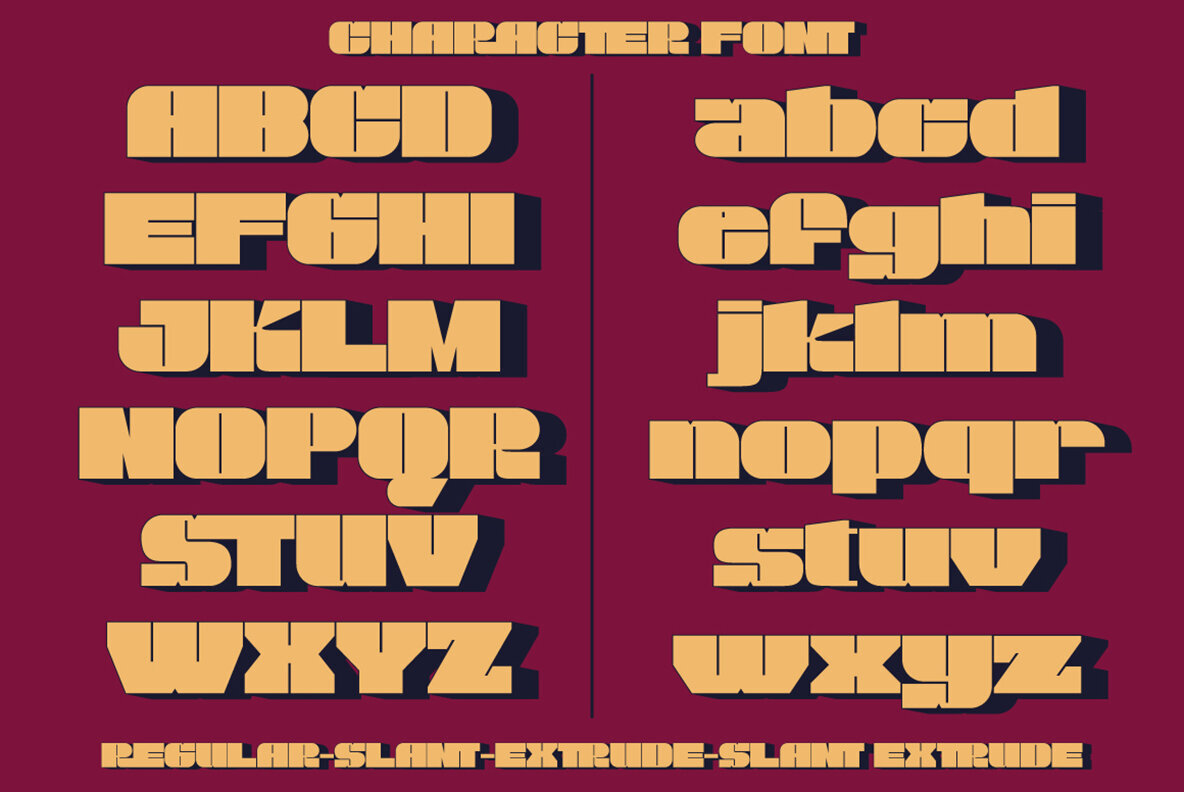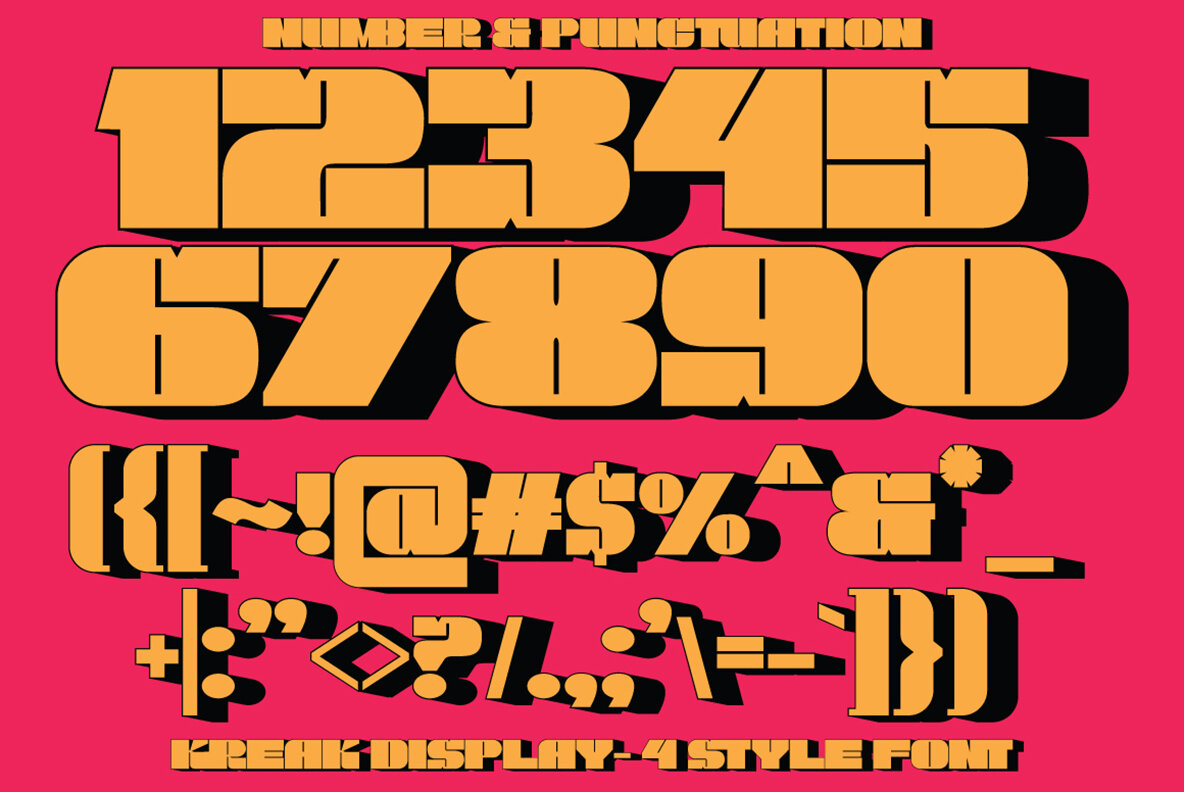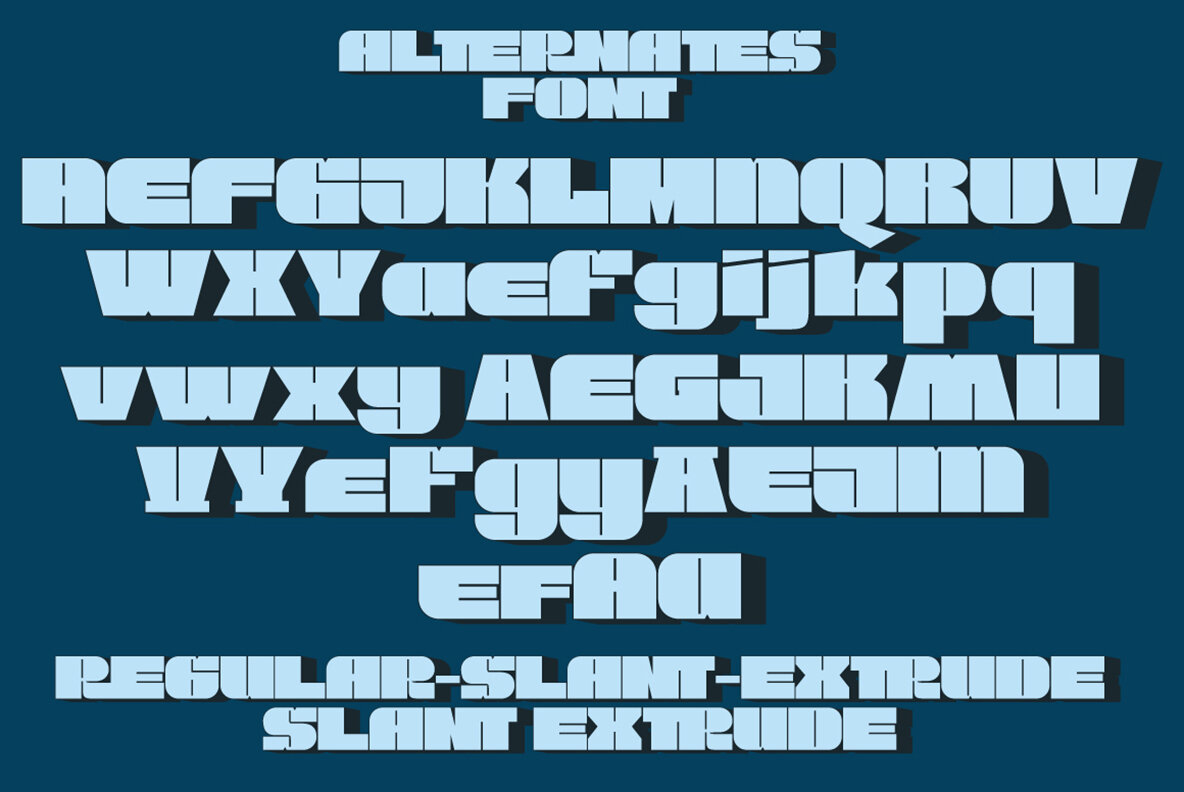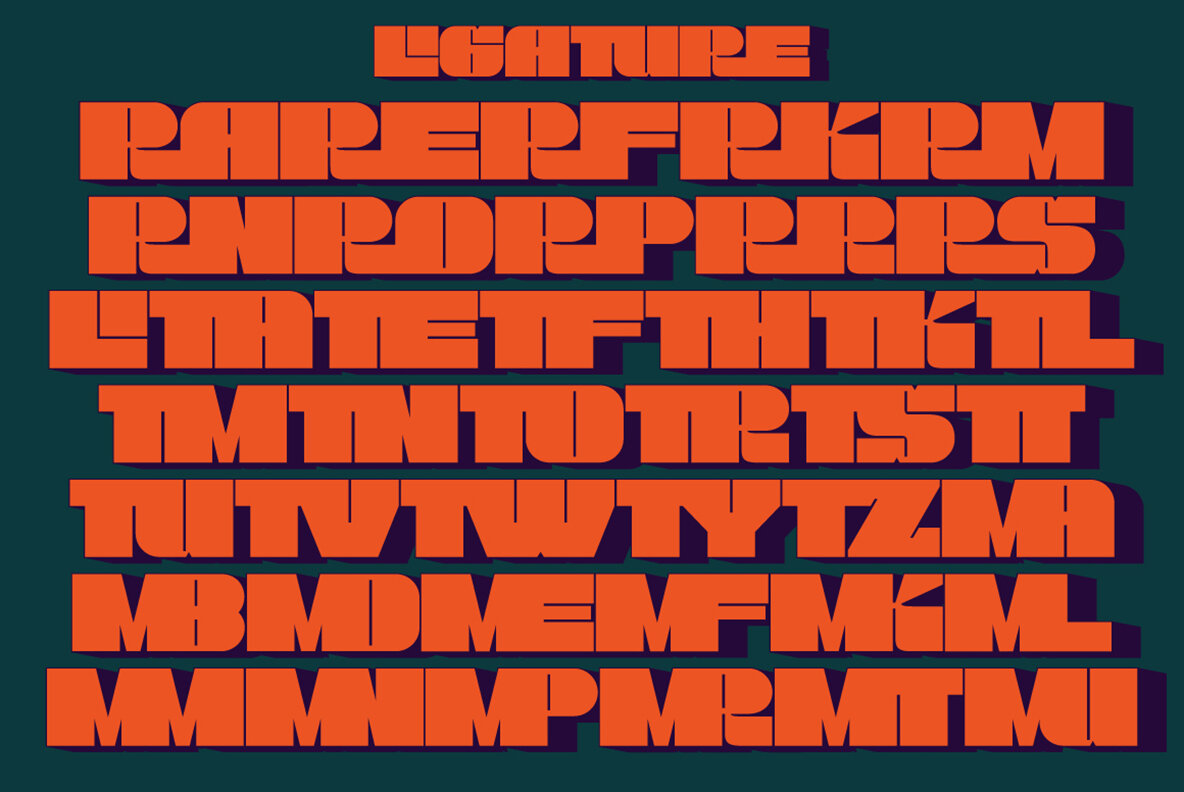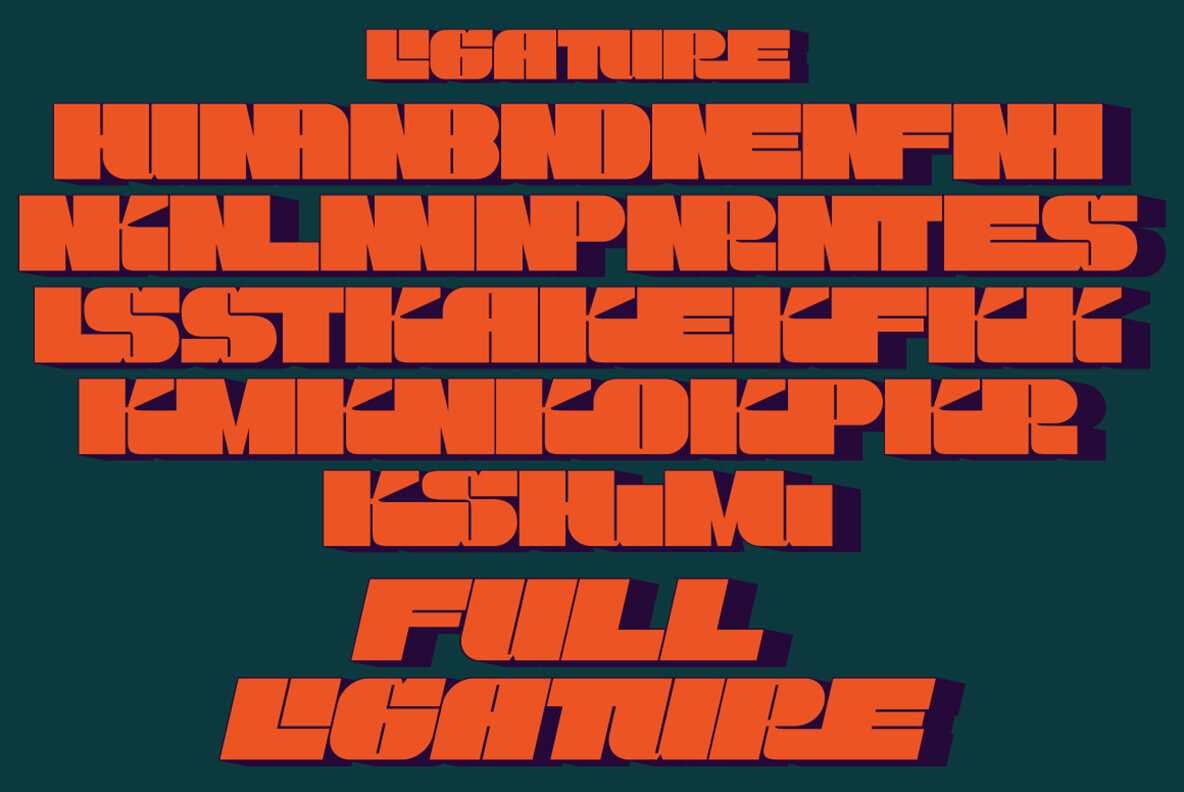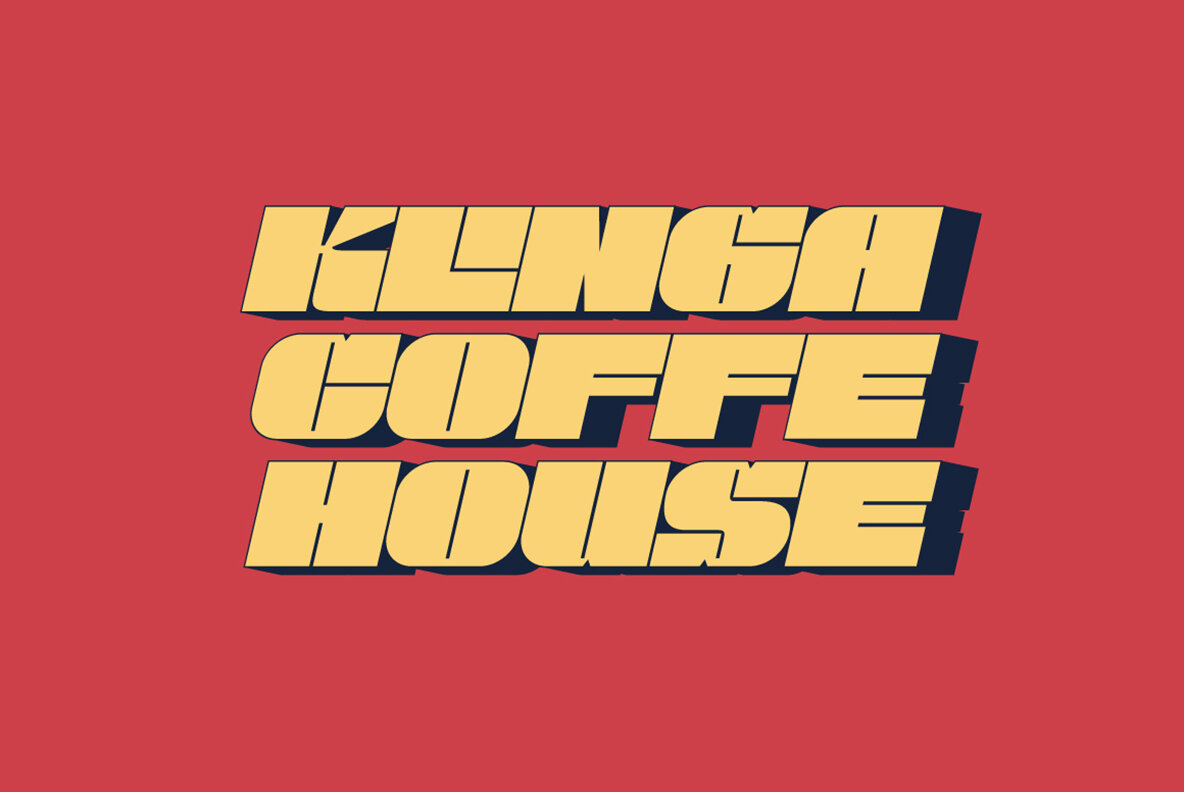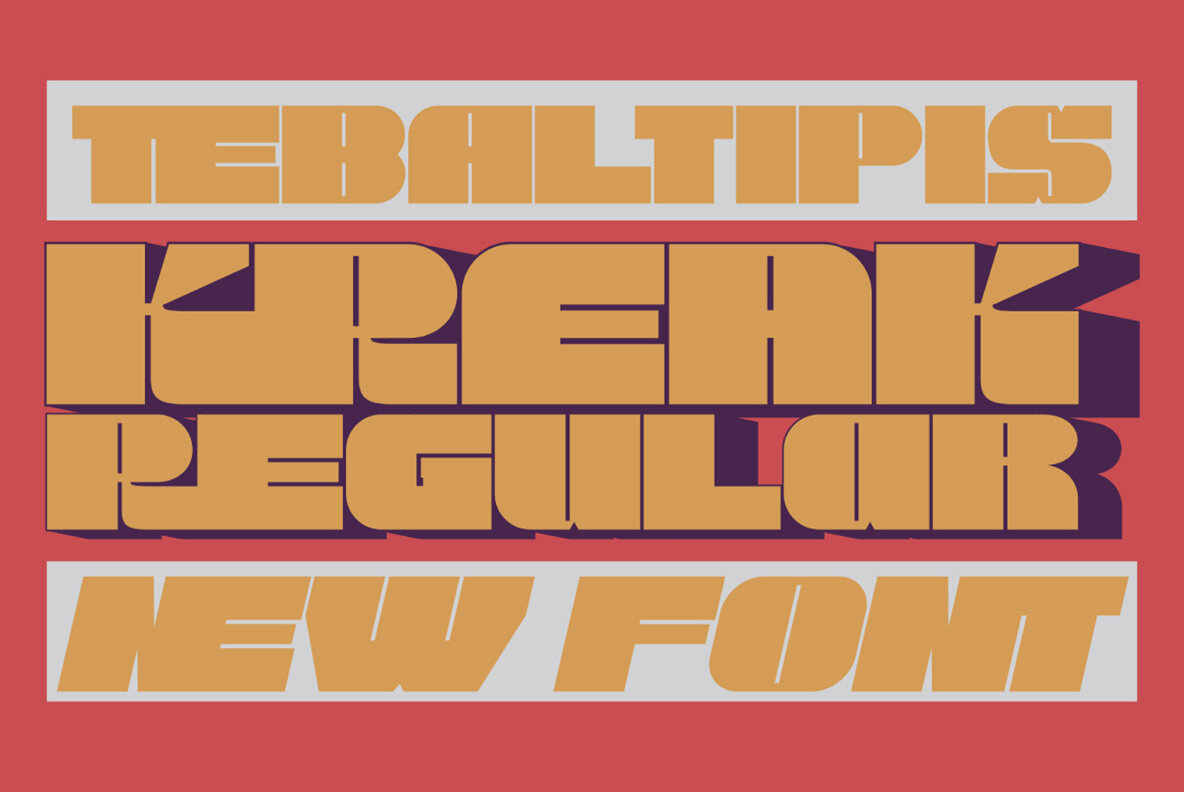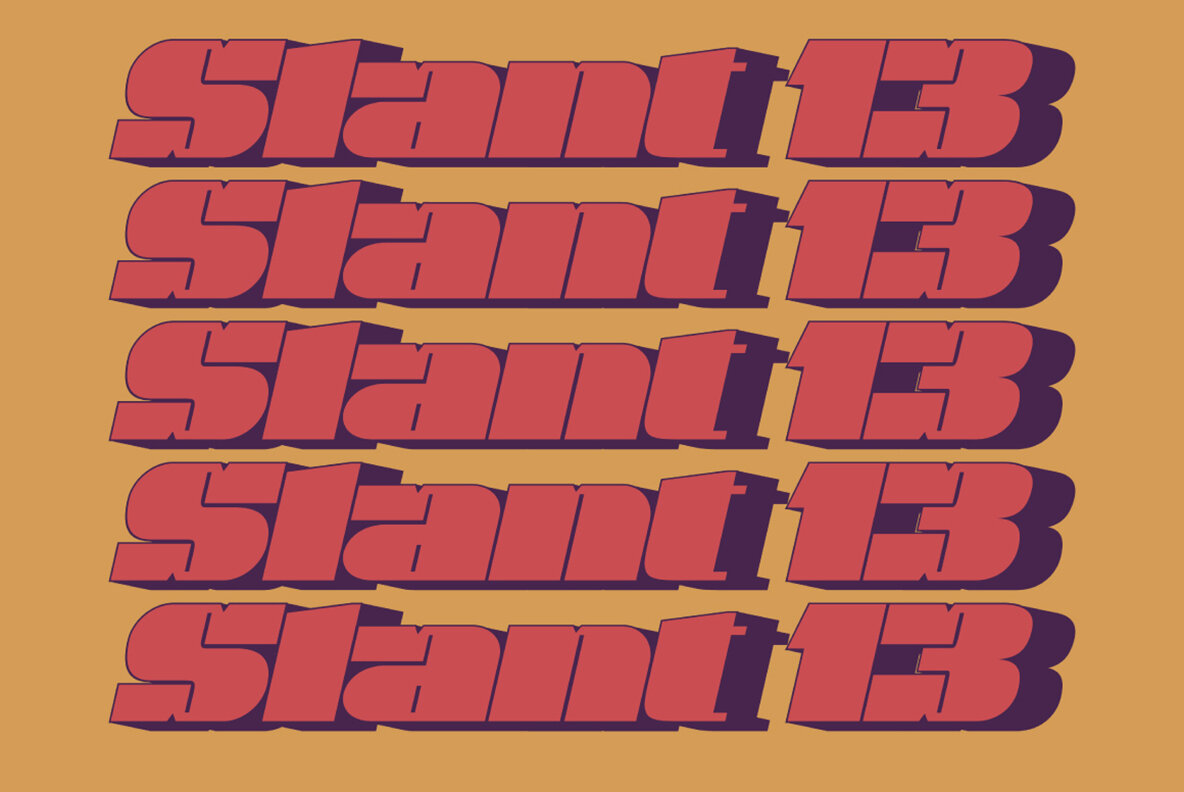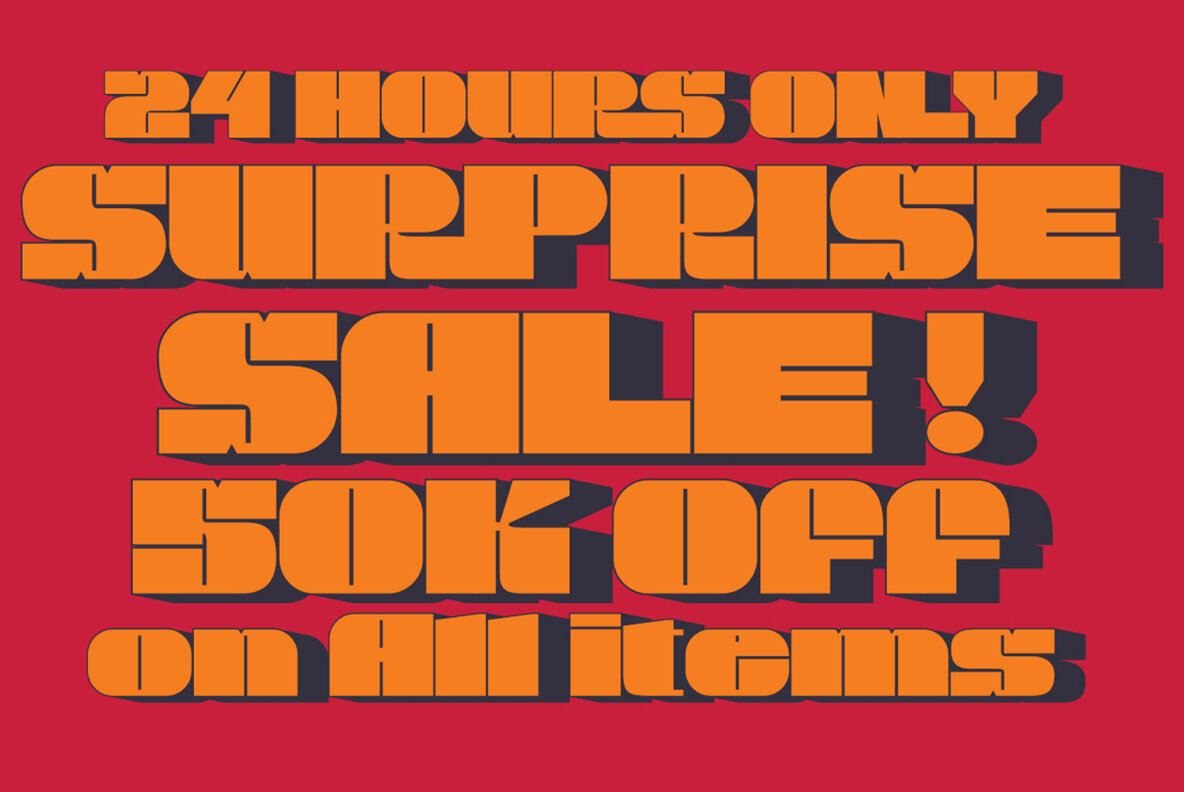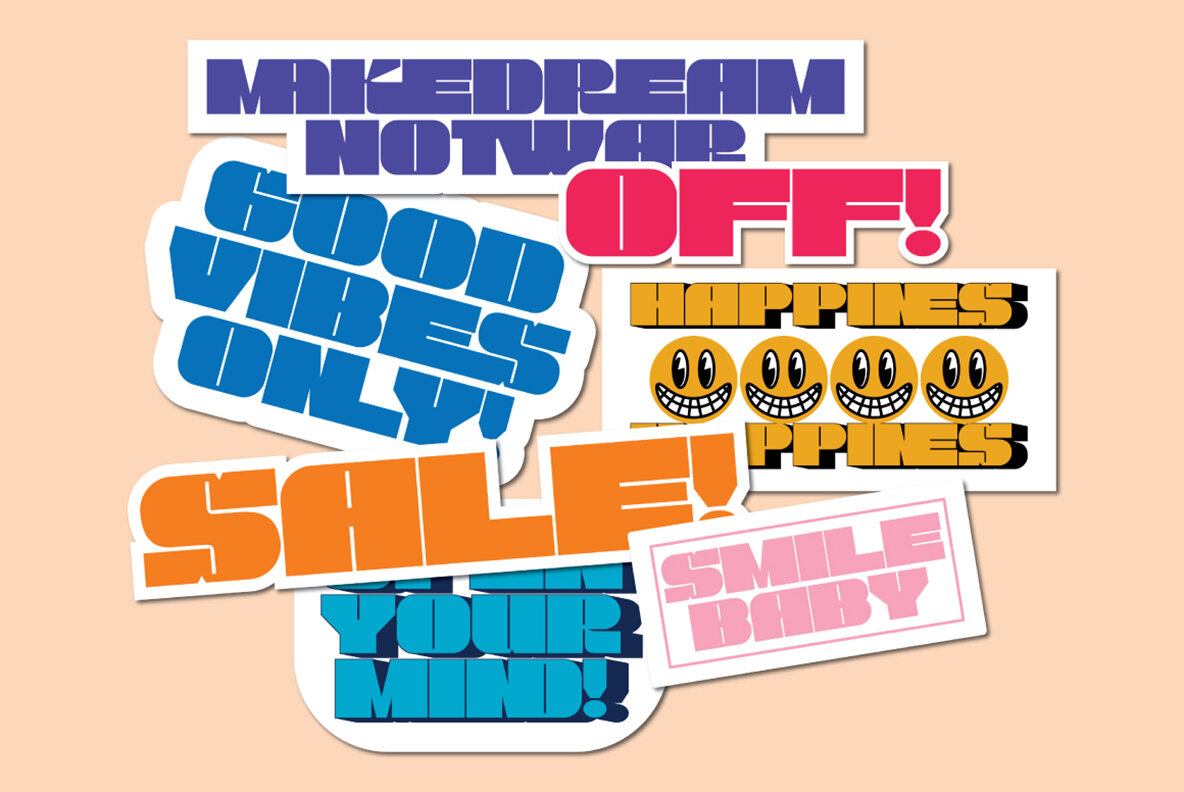
Kreak Display Font
Kreak is a bold display font featuring six versatile styles designed to meet different creative needs. This font includes uppercase, lowercase, alternative, and ligature letters, offering a fun, pop, vintage, and playful aesthetic.Kreak Display: Bold and Playful Font Styles